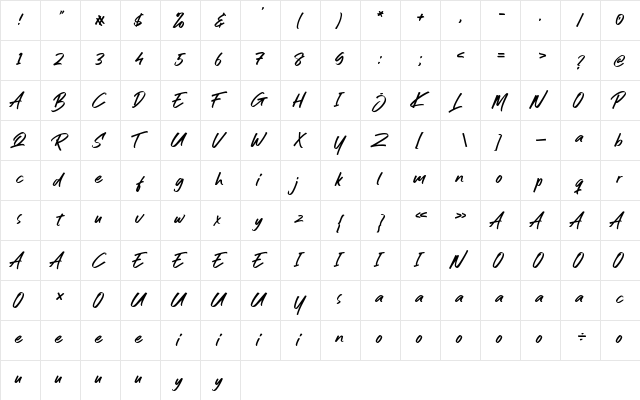
Jetta Kloots Regular
| Designer | Abdul Muthalib dan Muh.Aswar |
Design Context for Jetta Kloots Typeface
Jetta Kloots is a composed and adaptable typeface that performs quietly and consistently across a wide range of design contexts.